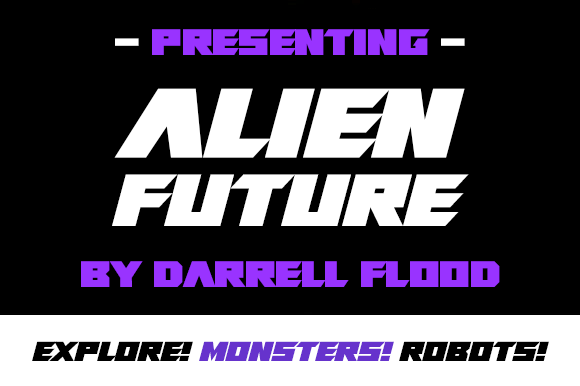
The Quest for the Perfect Futuristic Font: Discovering Alien Future
I still remember the late nights spent working on a sci-fi themed project, scrolling through font after font, trying to find that one perfect match. My client wanted something that screamed ‘futuristic,’ ‘edgy,’ and ‘high-tech.’ I was on the verge of giving up when I stumbled upon Alien Future, an ultrabold, slick, and stylish font that instantly resonated with my project’s vibe. If you’re a designer, crafter, or creative hobbyist looking for a font that embodies the spirit of the future, you’re in the right place.
Alien Future: A First Impression
Alien Future is not just any font; it’s a statement. Its ultrabold and futuristic design makes it perfect for sci-fi adventures, hi-tech themes, and any project that demands a modern, edgy look. The font’s sleek lines and sharp edges give it a cutting-edge feel that’s hard to ignore.
- ✨ Versatility: Alien Future can be used for a wide range of projects, from digital media to print.
- ✅ Readability: Despite its boldness, the font remains surprisingly readable, even at smaller sizes.
- 💻 Digital Compatibility: It works seamlessly across various digital platforms and devices.
- 🔍 OpenType Features: The font comes with a range of OpenType features, including stylistic alternates and glyphs, which can be used to add more creativity to your designs.
While Alien Future is an excellent font, there are a few things to keep in mind:
- ⚠️ Overuse: Its boldness can be overwhelming if overused. Balance is key.
- 🤔 Pairing: Finding the right font to pair with Alien Future can be a bit challenging due to its strong personality.
While the exact details about Alien Future’s creation are scarce, it’s clear that the designer aimed to capture the essence of the future. Inspired by sci-fi movies and hi-tech gadgets, the font embodies a sense of adventure and innovation. Whether or not the designer intended for Alien Future to be a universal font for all futuristic projects, it’s undoubtedly become a go-to for many designers.
Q: Is Alien Future suitable for body text?
A: While Alien Future is readable, its boldness makes it more suited for headings and titles. For body text, consider a more traditional font.